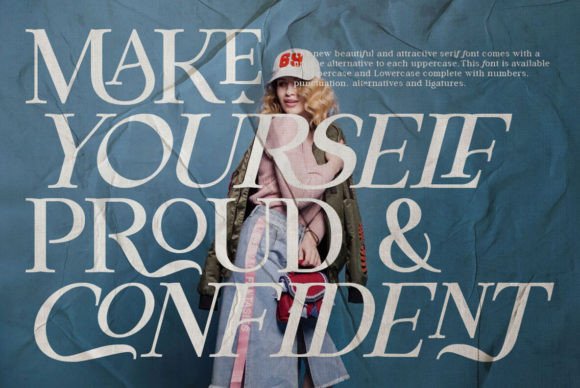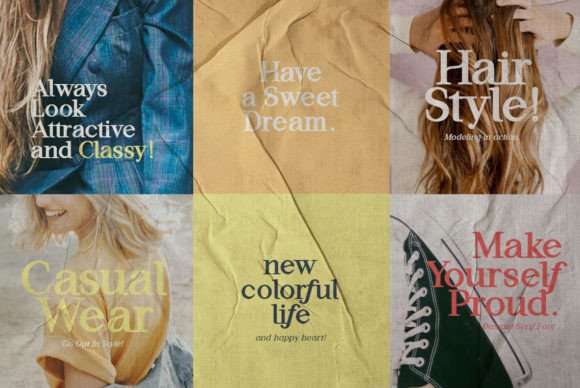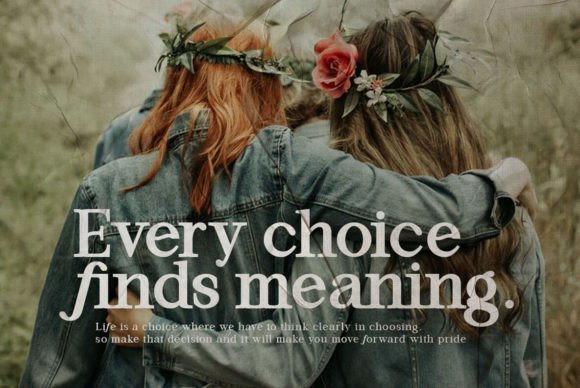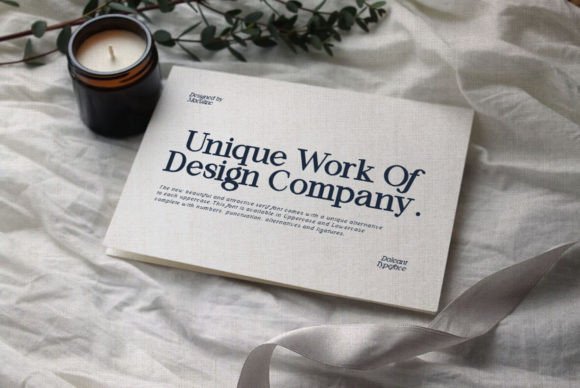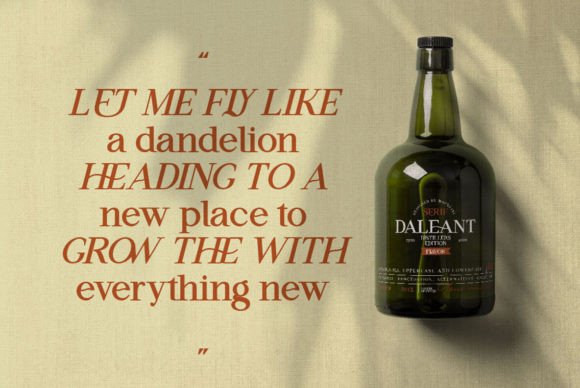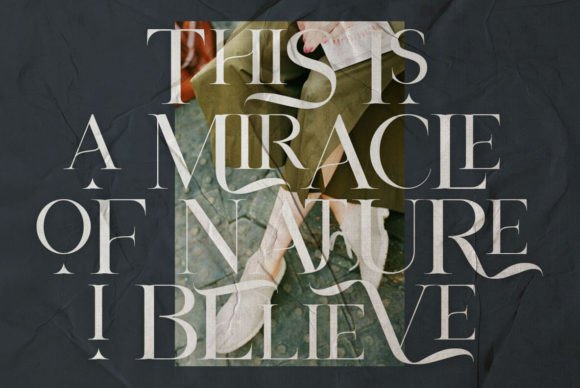
Introduction to Daleant Font
Have you ever been working on a creative project, pouring your heart and soul into it, and then suddenly, you need a font that captures the essence of your design? That’s where the magic of typography comes in. As designers, we’re always on the lookout for the perfect font to elevate our work and make it truly stand out.
One such gem is the Daleant Font, a stunning serif font that exudes elegance and sophistication. With its unique alternatives, it adds a touch of whimsy to your text, making it a delightful choice for any creative endeavor. Whether you’re working on invitations, headers, or a design project, the Daleant Font is a valuable resource that can take your work to the next level.
What sets the Daleant Font apart is its high quality and versatility. It’s available for free download, making it an accessible design resource for designers of all levels. Plus, its transparent background allows for seamless integration with any design project. In this article, we’ll delve into the world of the Daleant Font and explore why it’s a must-have for any designer looking to add a touch of sophistication to their work.
Key Features of Daleant Font
Honest Review: Daleant Font
I recently stumbled upon the Daleant Font while searching for a unique design resource for a creative project. I was blown away by the font’s high quality and versatility. The free download was a major plus, as it allowed me to experiment with the font without committing to a purchase.
Here are some aspects that work well for the Daleant Font:
- ✨ Unique and stylish design: The font’s aesthetic is perfect for adding a touch of sophistication to any project.
- ✨ Transparent background: This feature makes it easy to use the font on any background, giving you complete design flexibility.
- ✨ High-quality vector graphics: The font’s crisp and clean lines ensure that it looks great at any size or resolution.
- ⚠️ Limited character set: The font only includes a limited number of characters, which may not be sufficient for more complex projects.
- ⚠️ No bold or italic variants: While the font’s regular style is beautiful, it would be great to have more weight options to add depth to your designs.
Overall, I’m impressed with the Daleant Font. While it has its limitations, its unique design and high-quality vector graphics make it a valuable addition to any designer’s toolkit. I would definitely recommend it for creative projects that require a touch of elegance and sophistication.
Tips for Getting the Most Out of Daleant Font
For a high-quality design, use Daleant Font with a transparent background to create a clean and modern look. Experiment with different font sizes and colors to add depth and visual interest to your design. Use Daleant Font for your creative project to give it a unique and professional touch.
Daleant Font is ideal for designing logos, business cards, and other marketing materials. It’s also great for creating presentations, reports, and other documents that require a high level of professionalism.